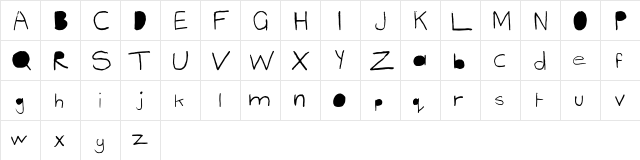
BigBrother Pen
| Style | Pen |
Design Context for BigBrother Typeface
BigBrother is a composed and adaptable typeface that performs quietly and consistently across a wide range of design contexts.